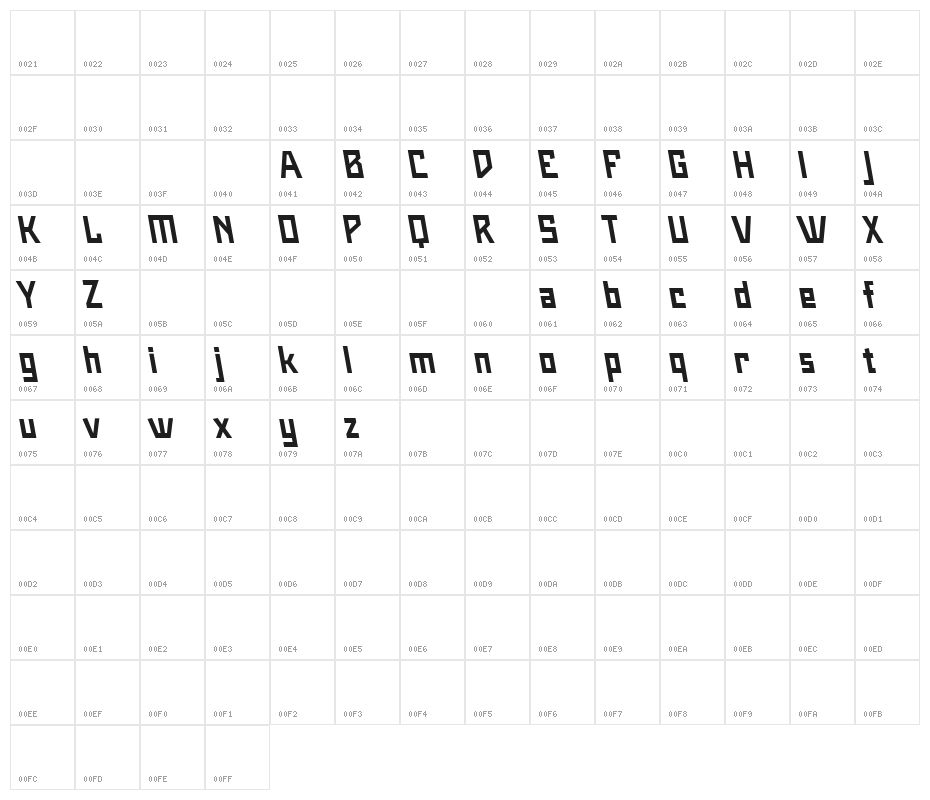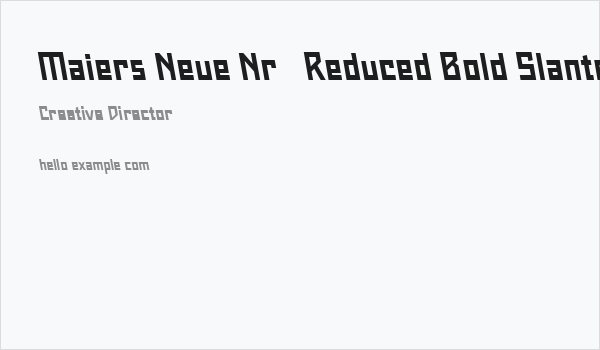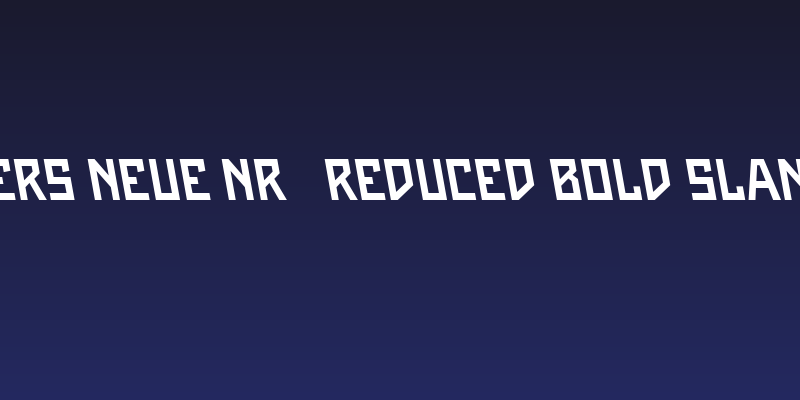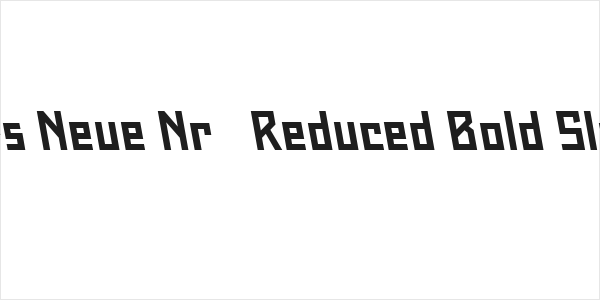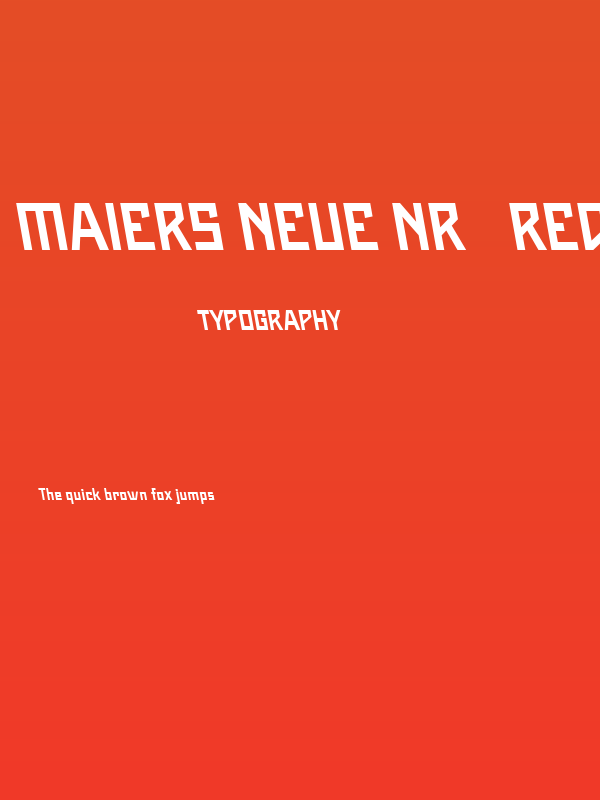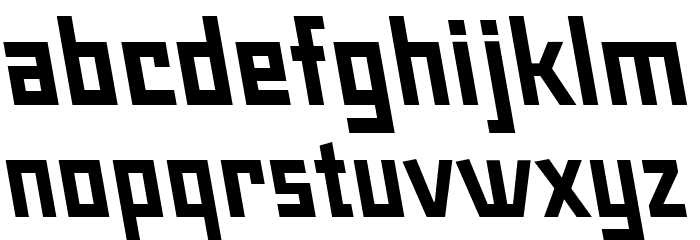
Maiers Neue Nr.8 Reduced Bold Slanted Font
Maiers Neue Nr.8 Reduced Bold Slanted Description
This font exhibits a bold and angular design with a distinct slant, giving it a dynamic and modern appearance. The characters are constructed with thick strokes and sharp edges, creating a sense of strength and assertiveness. The uppercase and lowercase letters maintain a consistent style, with the uppercase being slightly more pronounced. The numbers and special characters follow the same bold and slanted design, ensuring uniformity across all glyphs. The overall look is geometric and structured, making it suitable for impactful and attention-grabbing text.
| Proposed Projects | Ideal for use in branding, headlines, posters, and any design requiring a strong visual impact. |